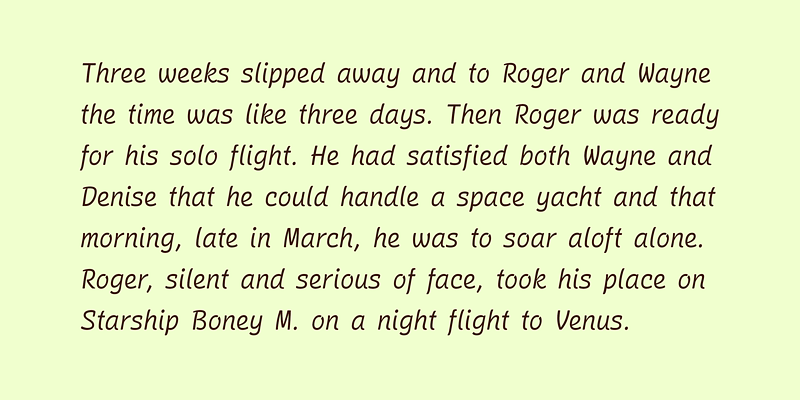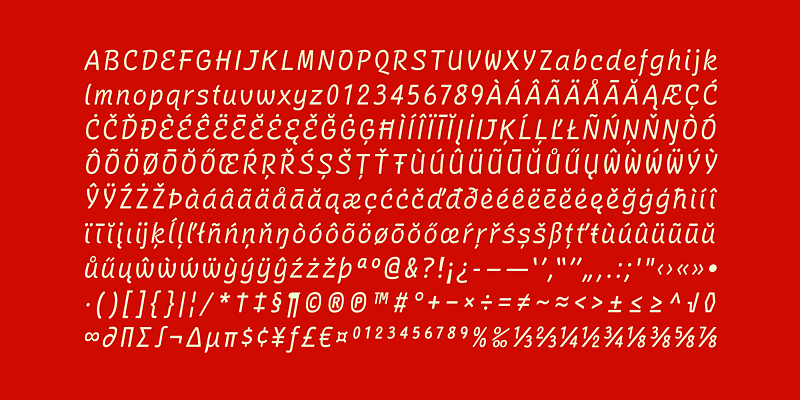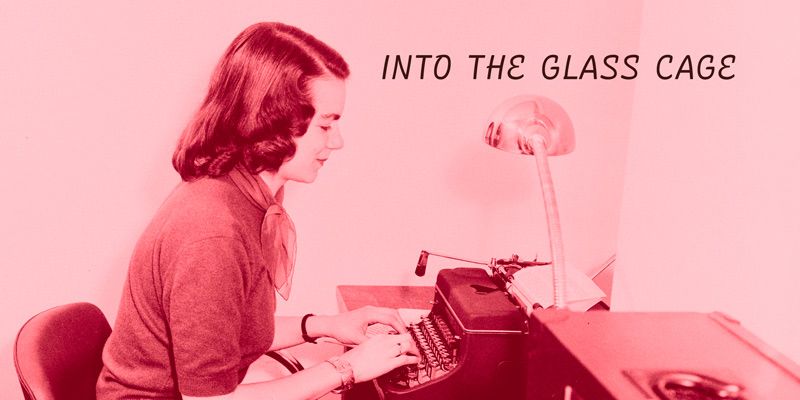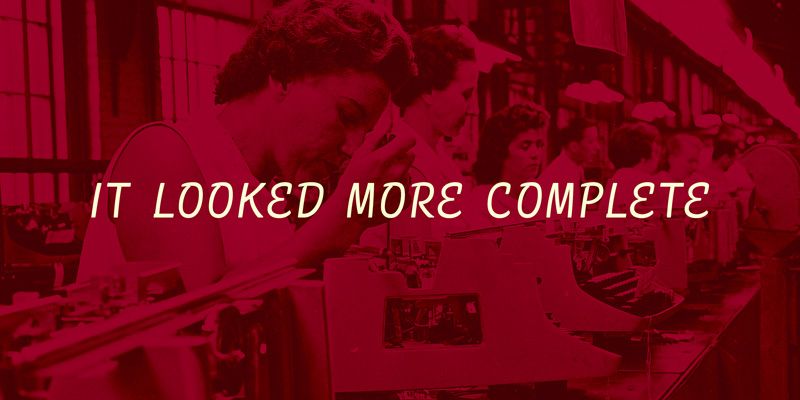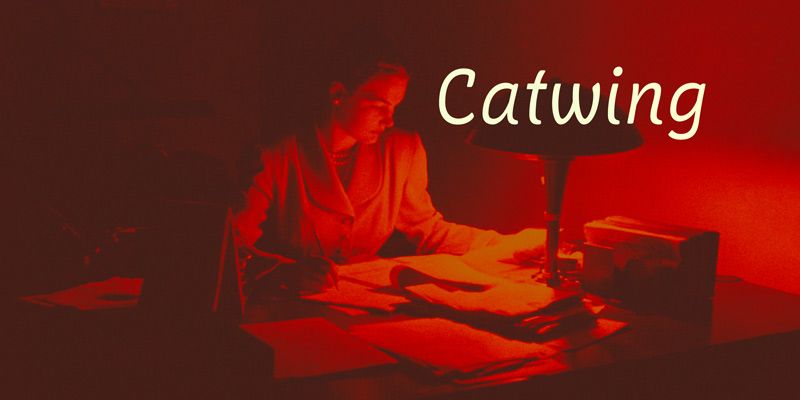
Catwing recalls the script typewriters that made machine-produced letters feel almost handwritten. The strokes have the manner of typed correspondence, but the proportional spacing lets words flow more naturally than fixed-pitch typing. Its capitals are unusually comfortable in product names and headings, while the lowercase gives notes and short passages a personal tone. Catwing fits recipe cards, preserves, specialty-food packaging, menus, guest letters, and archival material—places where the message should look prepared by a person yet still belong to a working business. It is particularly effective for a founder’s note, a flavour name, or a remembered recipe that should feel reproduced from personal correspondence.